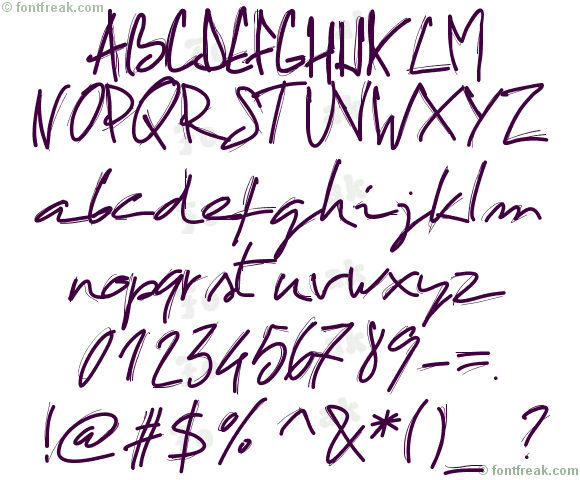
PWCactus
PWCactus is a unique display font designed by Peax Webdesign, characterized by its playful, handwritten style that captures attention with its artistic flair. This freeware font embodies a modern yet slightly rustic aesthetic, making it suitable for a variety of creative projects. The strokes are fluid and organic, featuring a medium weight that strikes a balance between visibility and elegance. The letterforms are designed with gentle curves and fluid connections, enhancing readability while maintaining a relaxed, informal vibe.
PWCactus excels in specific use cases, making it an ideal choice for wedding invitations that require a personal touch, or for crafting eye-catching movie posters that need a distinct character. Its whimsical style also lends itself beautifully to restaurant menus, particularly for establishments that focus on a casual, fun dining experience. Additionally, it works well for branding materials such as logos and business cards, appealing to small business owners looking to convey creativity and approachability. Graphic designers and content creators will find PWCactus to be a versatile addition to their typography toolkit, perfect for social media graphics and promotional materials.
What sets PWCactus apart is its ability to evoke a sense of warmth and friendliness while remaining stylish and modern. The font's unique character makes it memorable, ensuring that any text set in PWCactus makes a lasting impression. With its combination of charm and versatility, PWCactus invites users to explore its potential in diverse applications. For those looking to enhance their design projects, the PWCactus font free download offers an accessible way to incorporate this distinctive typeface into their creative endeavors, elevating their work with a touch of artistic flair.